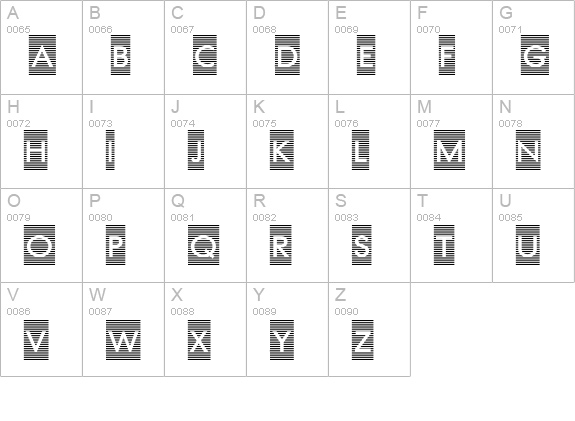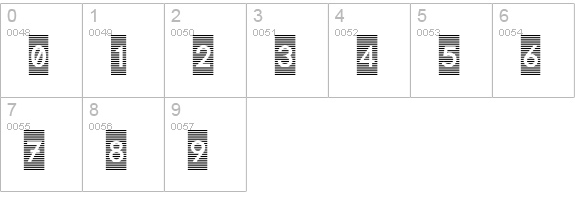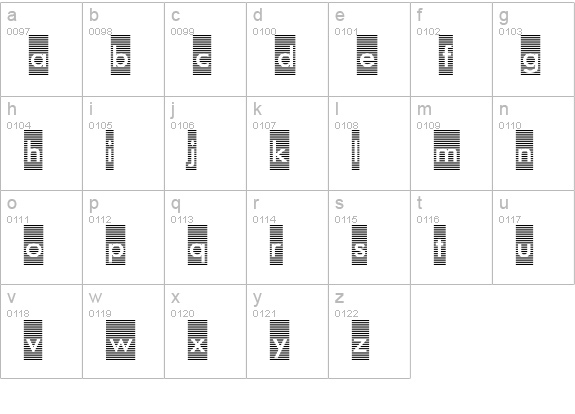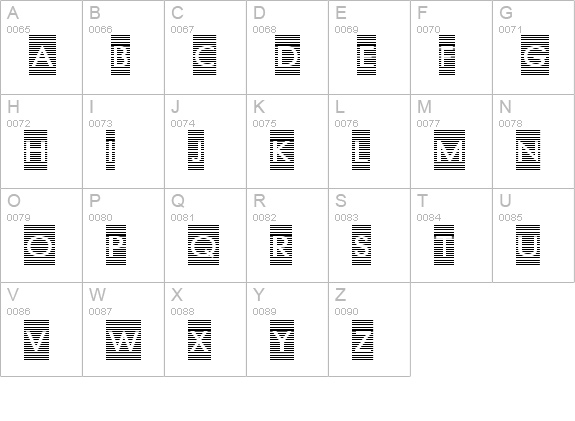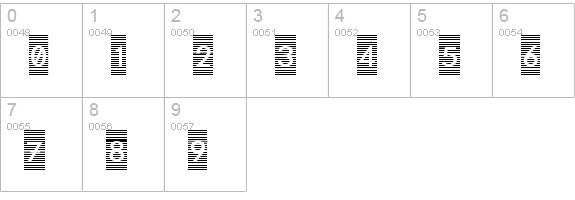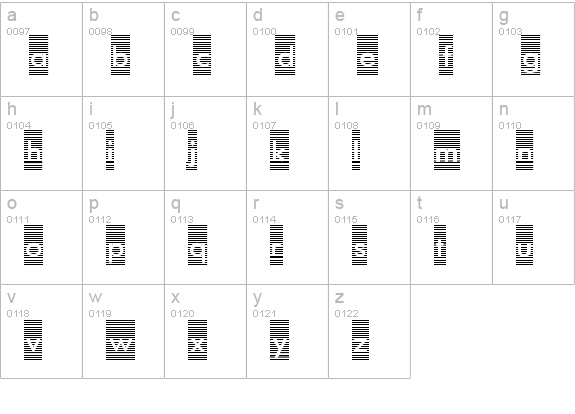
Barred Out Font Details
Barred Out font exudes a bold and edgy aesthetic, perfect for making a statement in your designs. Its unique combination of sharp angles and thick, block-like strokes gives off a strong and eye-catching appearance. The striking barred lines running through each character add a touch of modernity and sophistication to this font. What's even better is that Barred Out font is available for free download at FontsMarket.com, making it easily accessible for designers looking to add a touch of boldness to their projects. Whether you're working on a poster, logo, or any other design piece that needs to stand out, Barred Out font is sure to make a lasting impression. Download it today and let your creativity shine with this dynamic and impactful typeface.